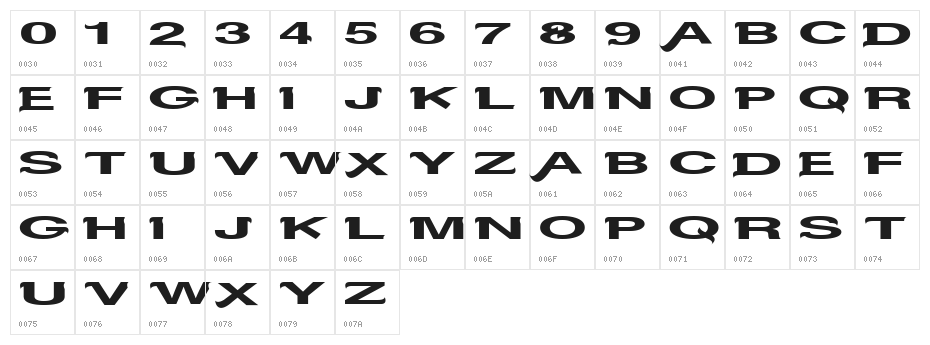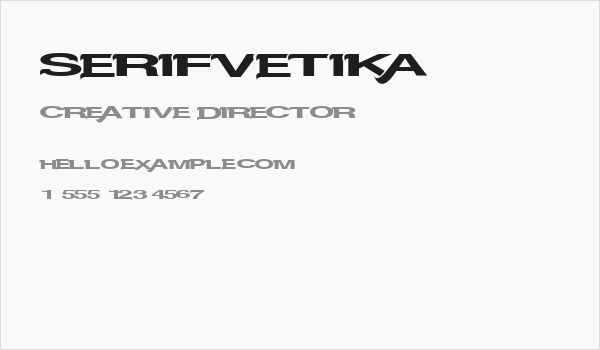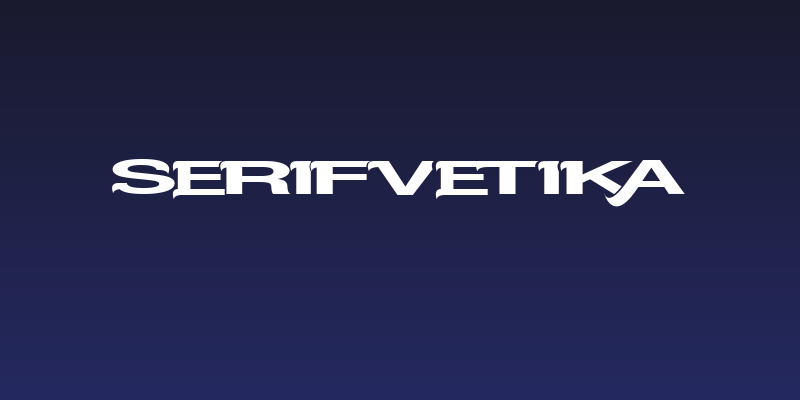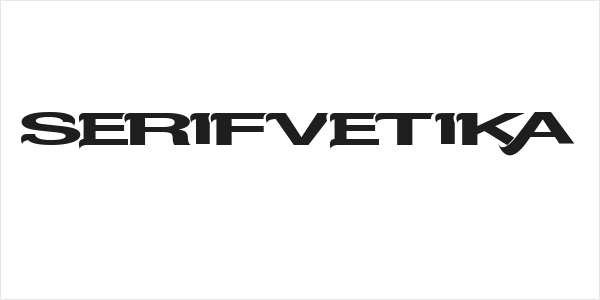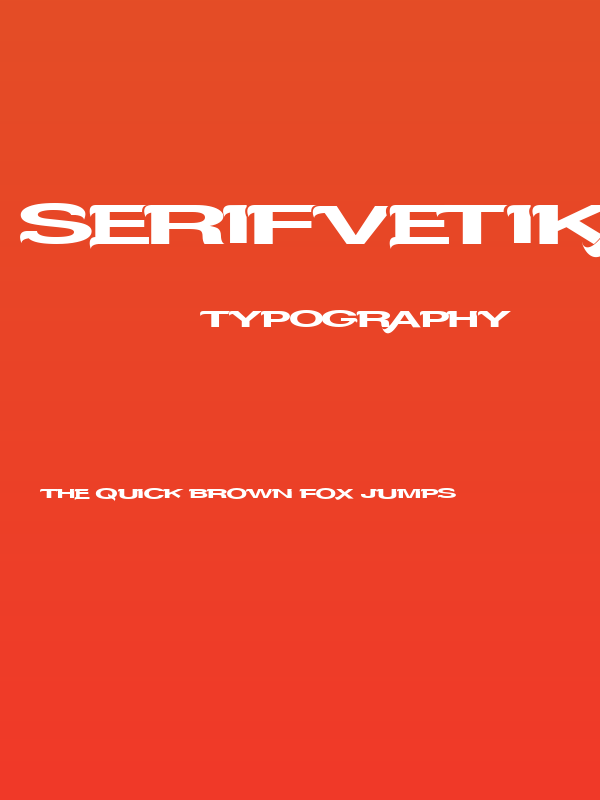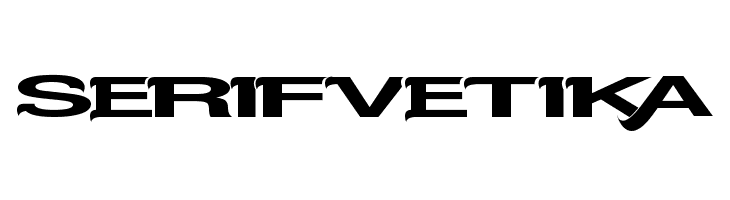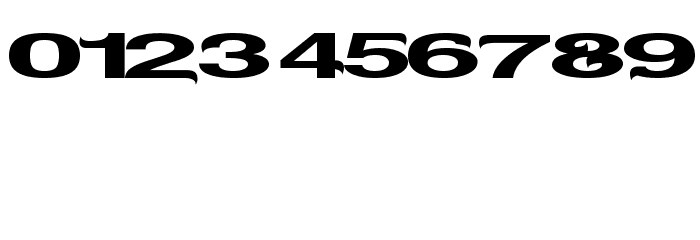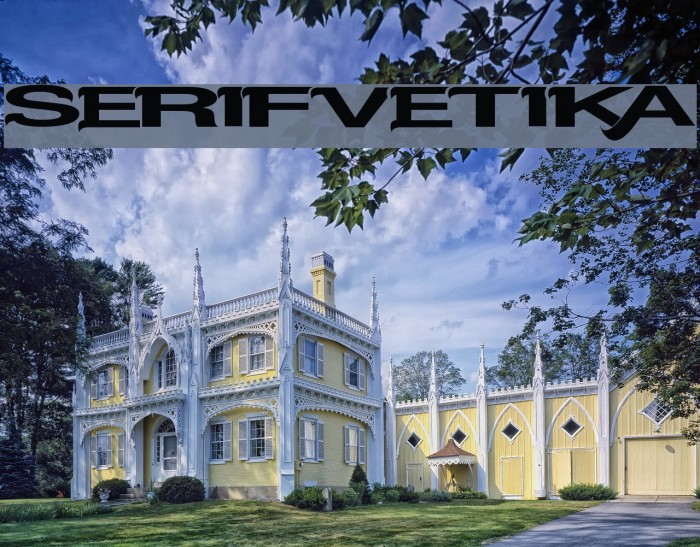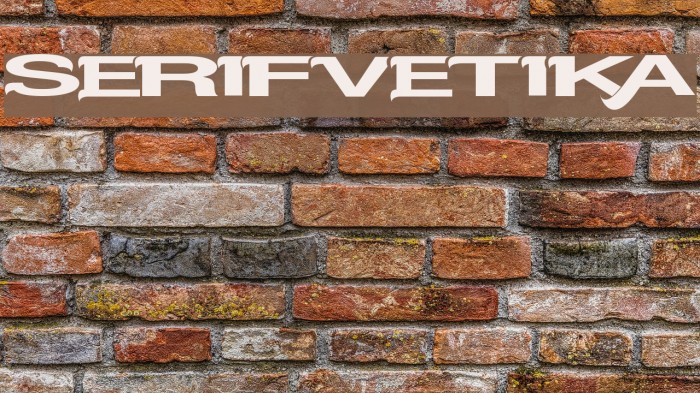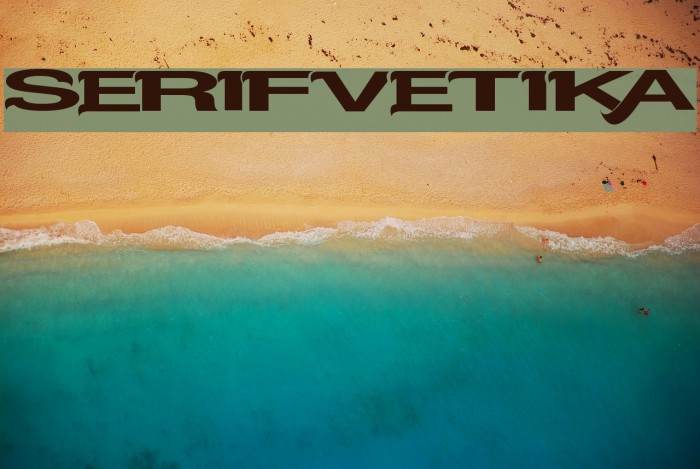
Serifvetika Font
This font features a bold and striking design with a modern twist. The characters are characterized by thick, uniform strokes and sharp edges, giving them a strong and impactful appearance. The uppercase letters are particularly prominent, with a slight slant that adds a dynamic feel. The numbers are equally bold, maintaining the same thickness and style as the letters, ensuring consistency across all characters. The overall design is clean and uncluttered, making it suitable for attention-grabbing headlines and titles. Its unique style makes it stand out, while still being legible and versatile for various design needs.
| Proposed Projects | This font is perfect for projects that require a strong visual impact, such as advertising campaigns, poster designs, branding materials, and logo creation. |